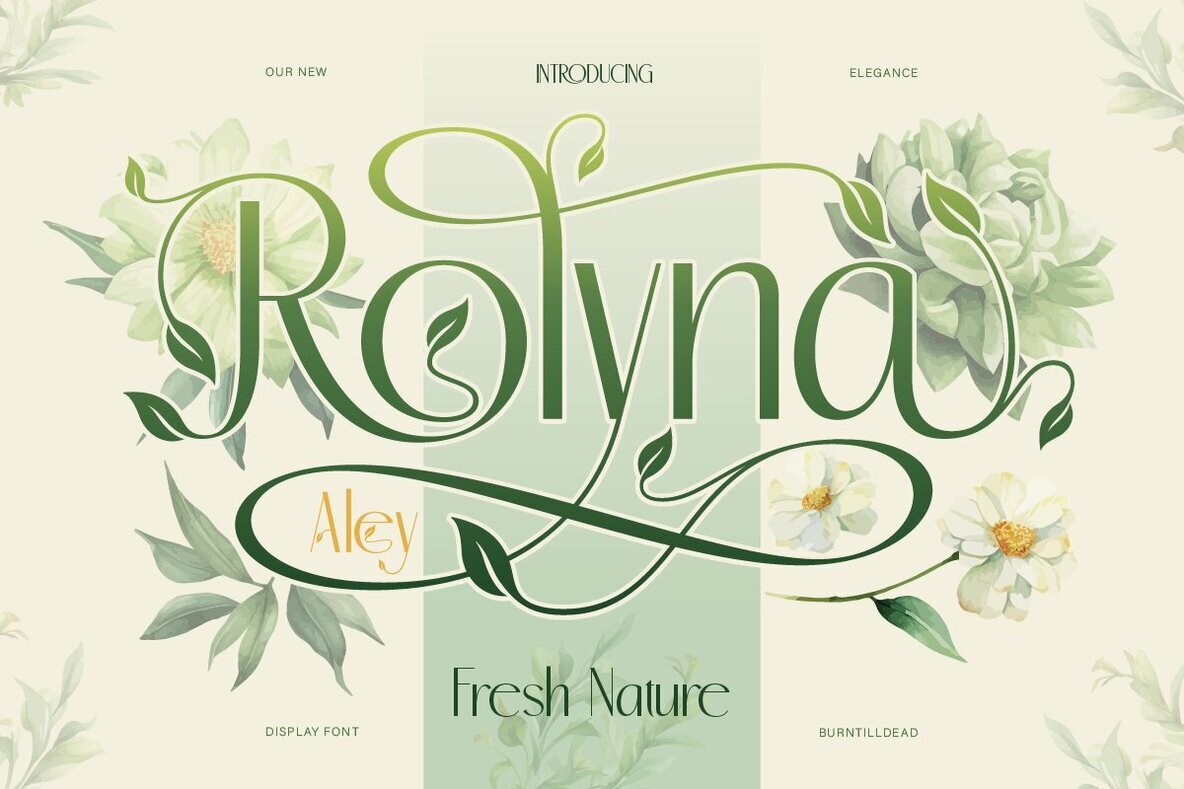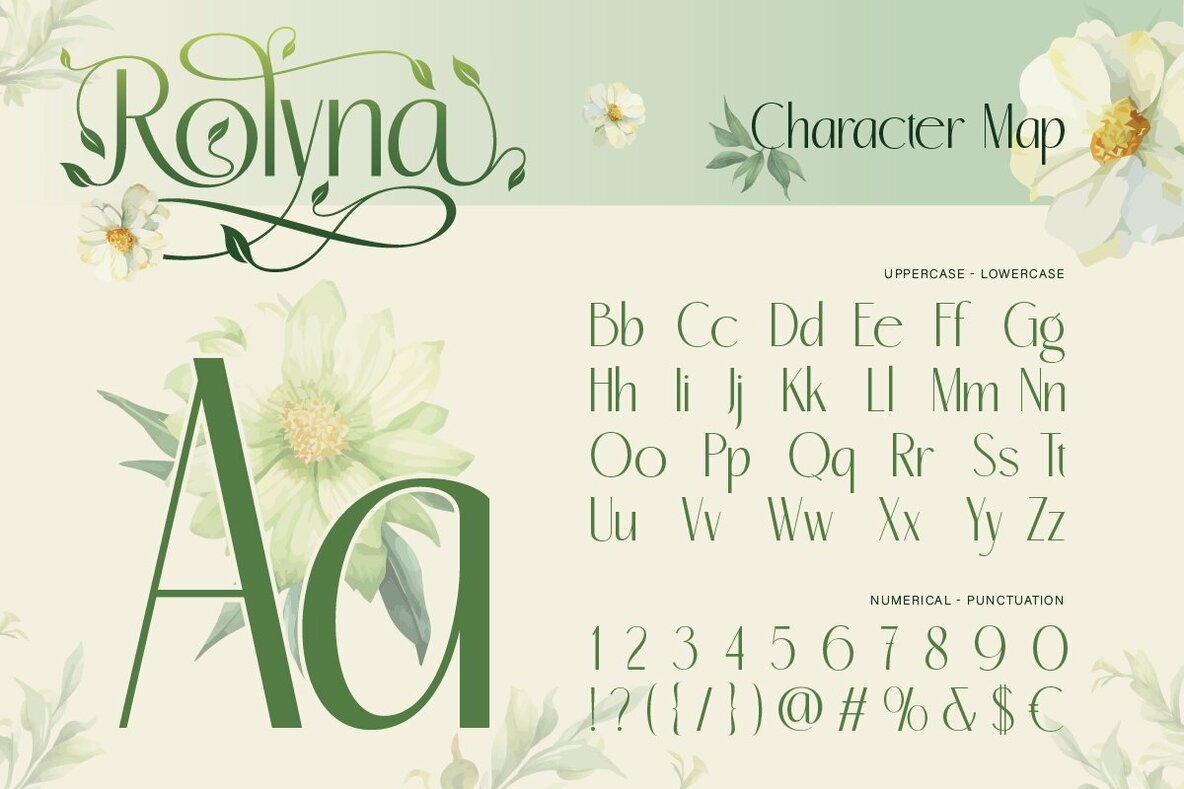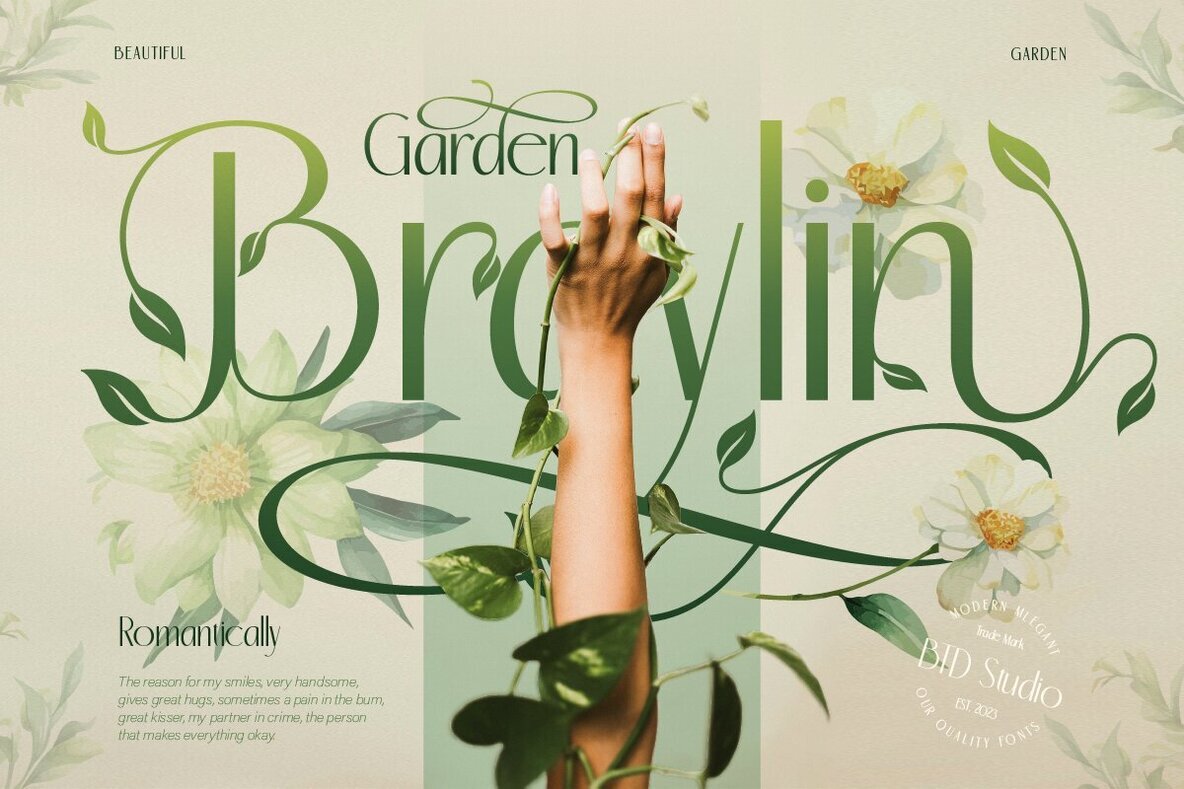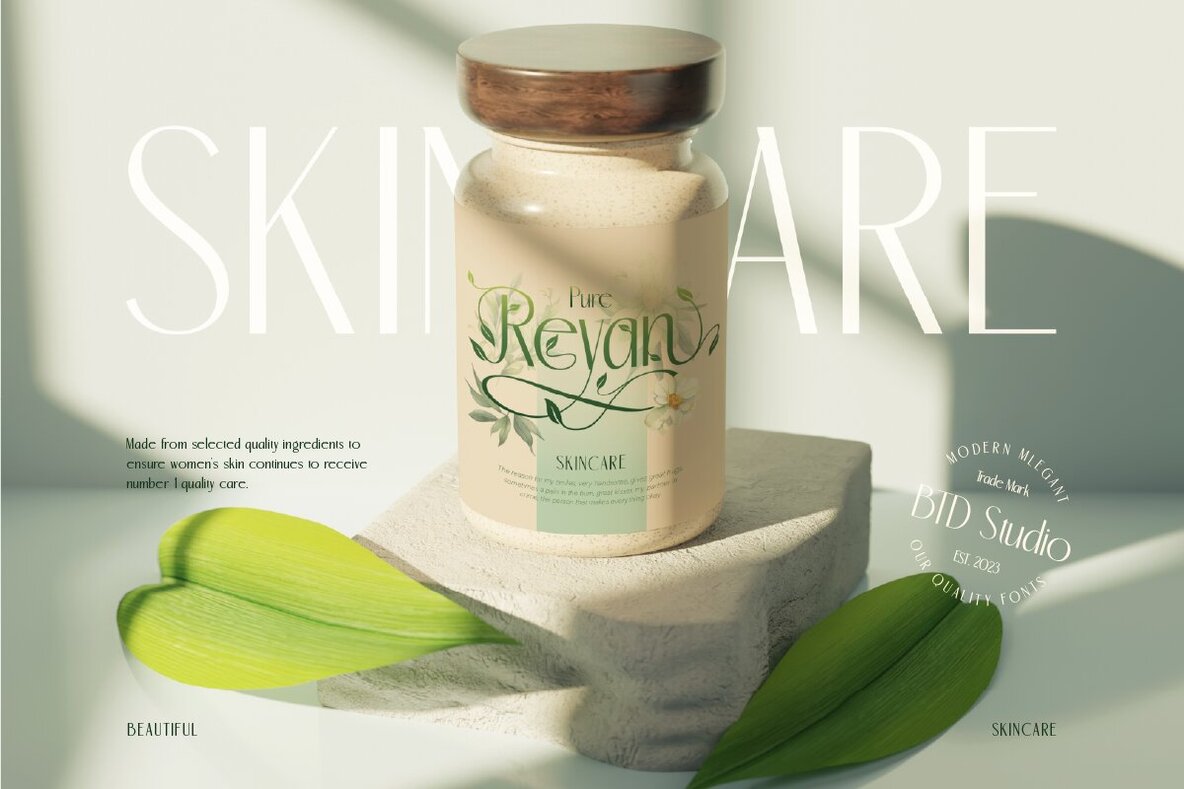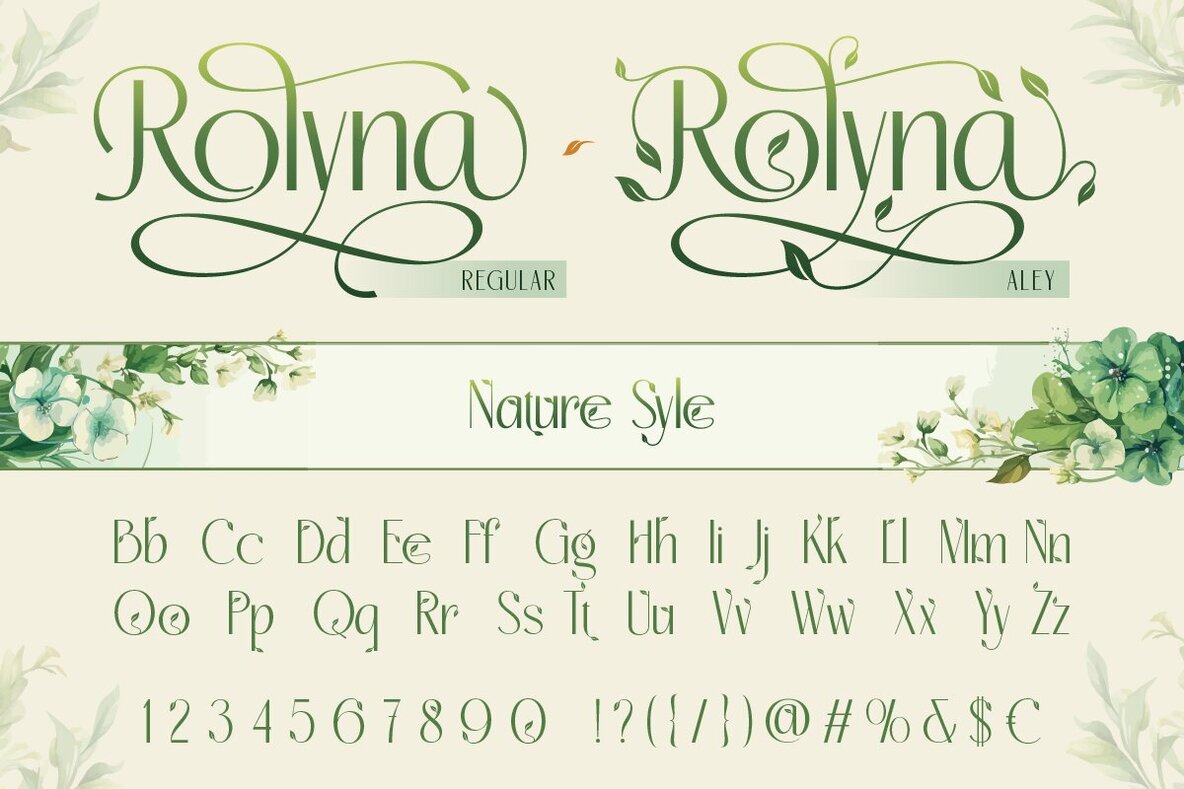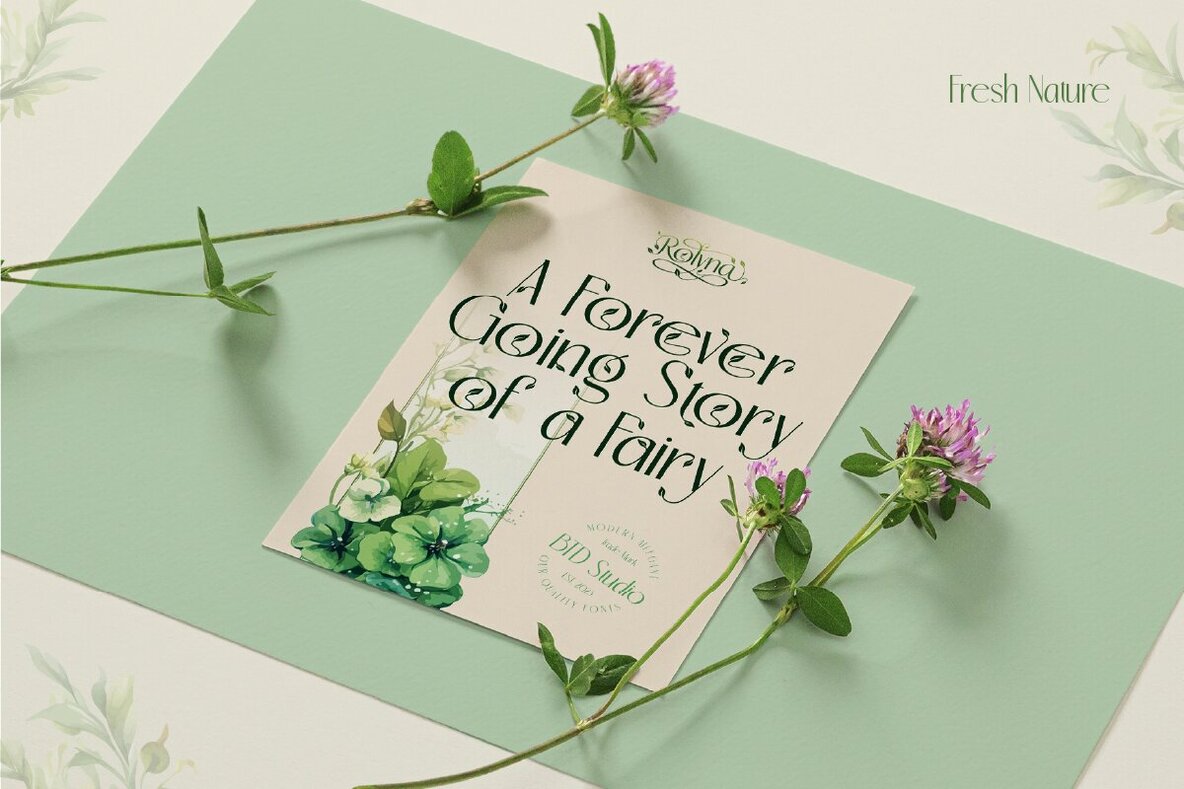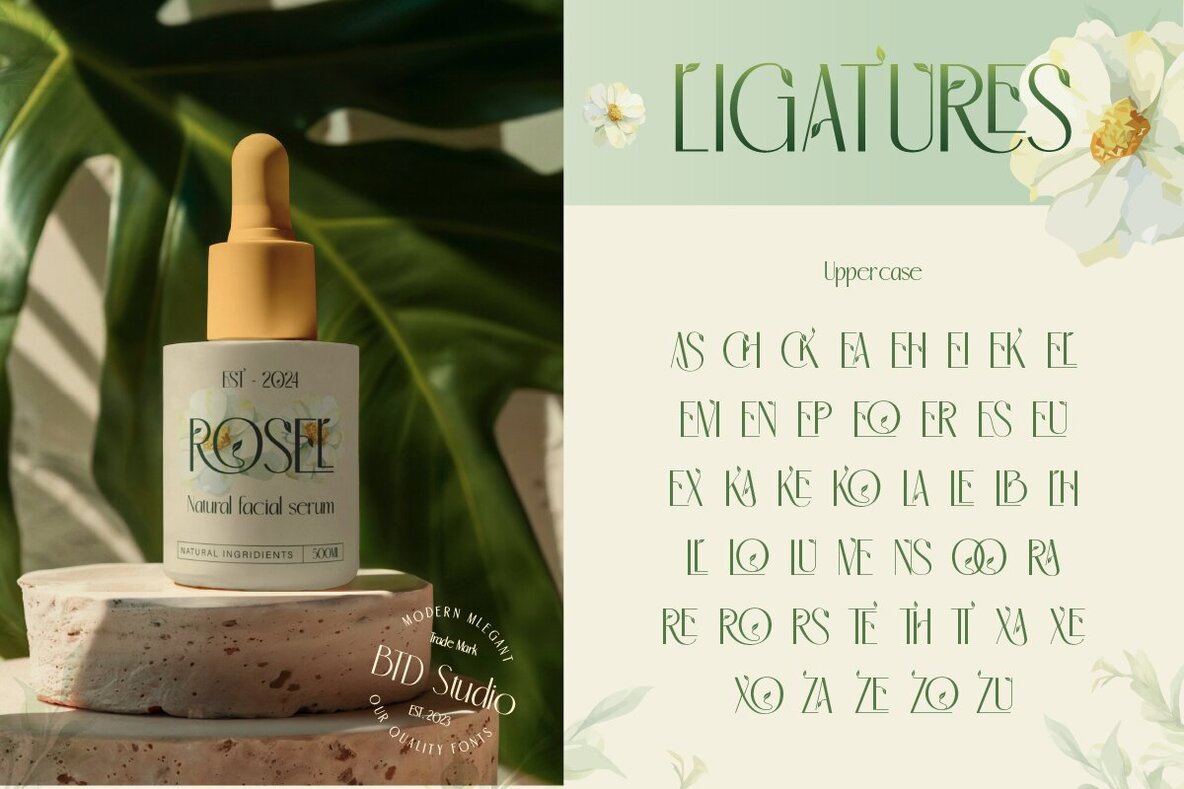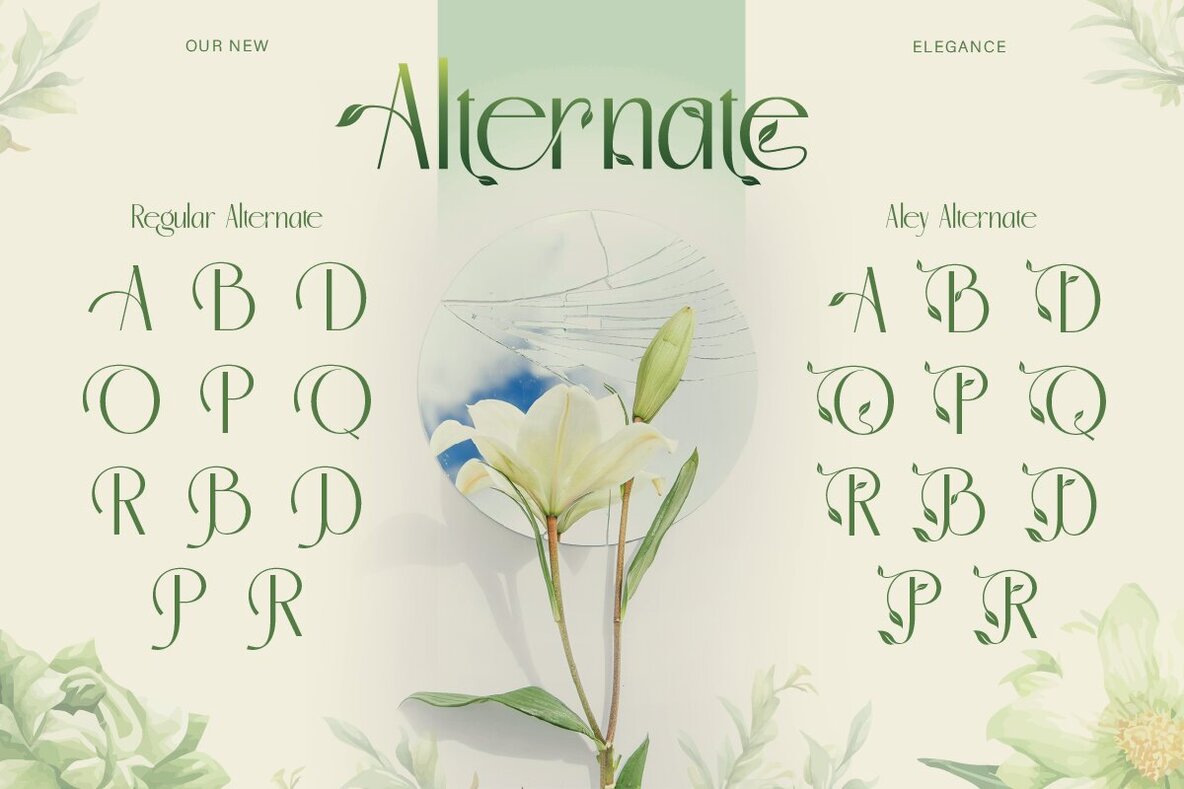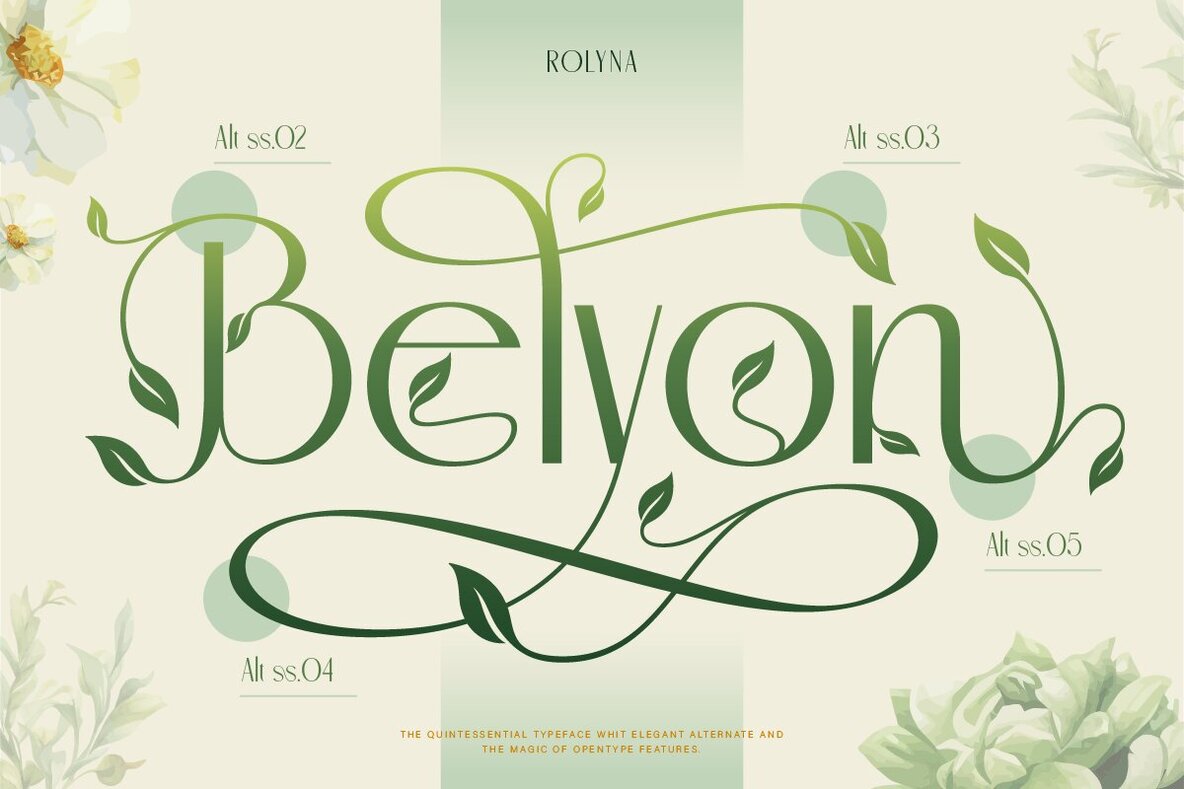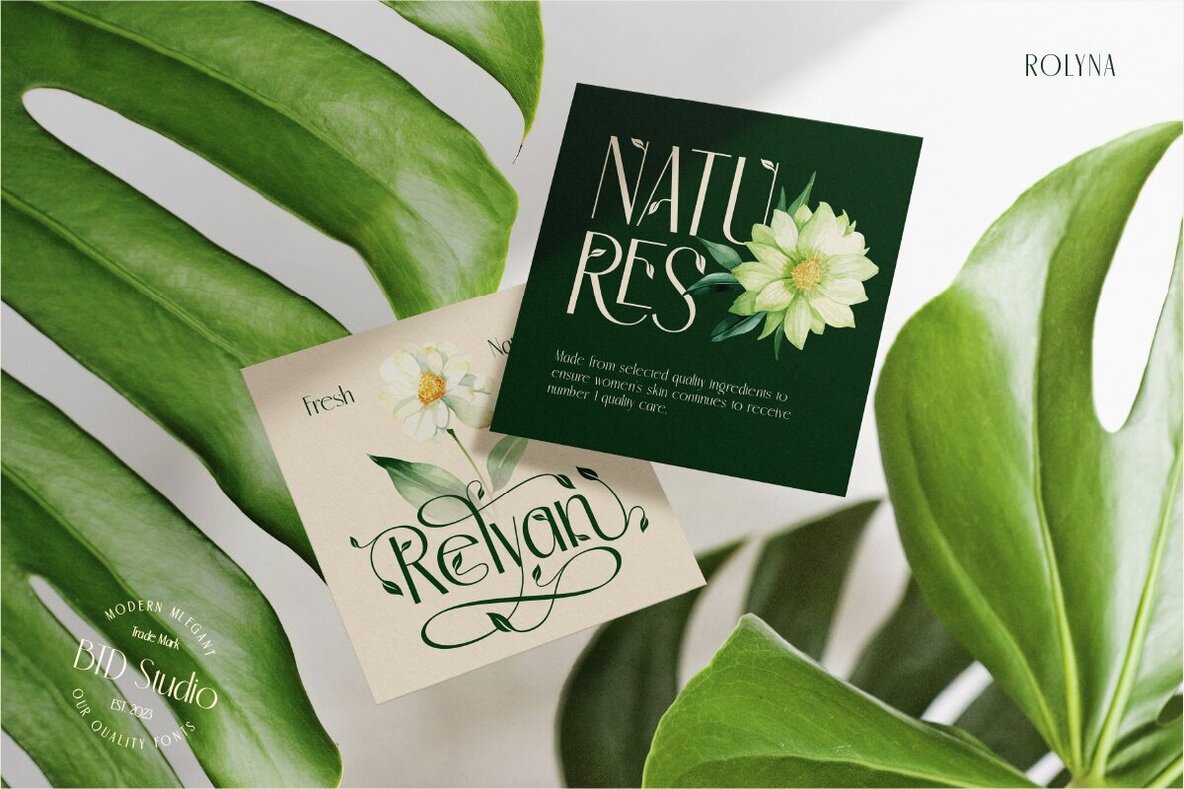
Rolyna Font
Rolyna Regular
Rolyna Aley
Meet Rolyna, a nature-inspired display font infused with modern elegance and botanical charm. This versatile typeface features two distinctive styles—Regular offers a clean and sophisticated appearance, while Aley includes decorative swashes and leafy details for a whimsical touch. Whether you prefer a minimalist or ornamented look, Rolyna adapts beautifully to any project. The font's tall letterforms and nature-inspired accents craft a visual narrative akin to vines twining around a fairytale garden gate. It's perfect for skincare and botanical logos, herbal packaging, eco-friendly branding, garden-themed wedding invitations, romantic editorials, fashion layouts, greeting cards, journals, and a myriad of creative pursuits.Introducing Rolyna